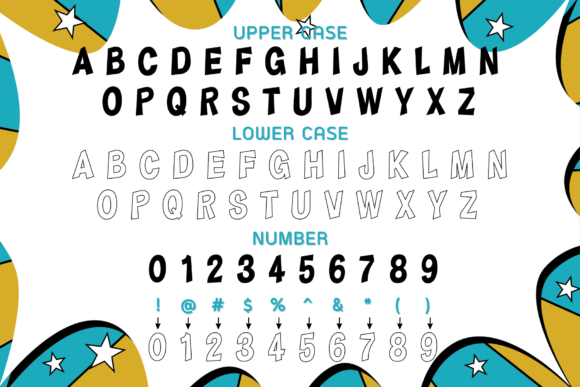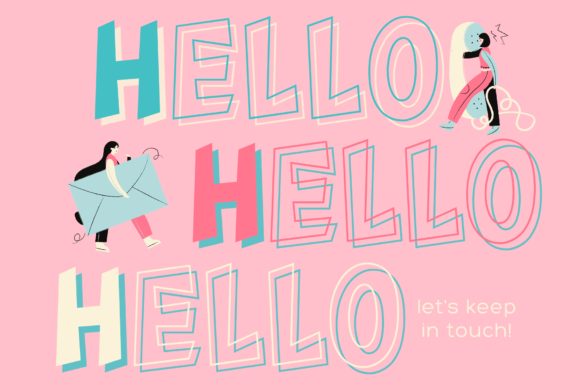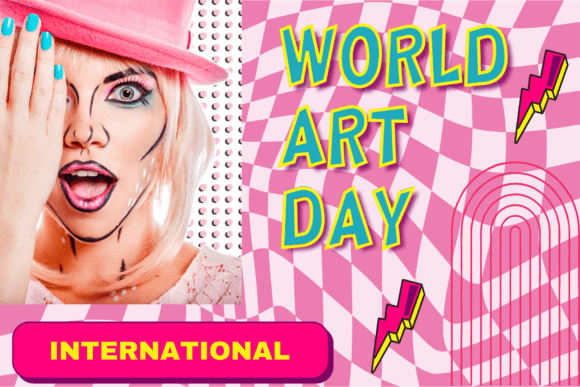
Introduction to Pop Art Font
You’ve got a creative project in mind, and you’re searching for the perfect font to make it pop. As you scroll through design resources, one name keeps popping up: Pop Art Font. This iconic display font is a masterclass in bold, colorful design that’s sure to grab attention and evoke the vibrant spirit of 1960s pop art.
Whether you’re working on a poster, album cover, or digital design, the Pop Art Font is a valuable asset for designers. Its unique, stylized letters are perfect for creating eye-catching titles and headlines that demand attention. Plus, its high-quality design is available for free download, making it a go-to resource for creatives on a budget.
Key Features of Pop Art Font
- Unique, bold design: Pop Art Font features a distinctive, eye-catching style that’s perfect for creative projects.
- Large character set: With a wide range of characters, including uppercase and lowercase letters, numbers, and symbols, you’ll have everything you need for your design.
Honest Review: Pop Art Font
- ✨ Unique and playful design aesthetic that adds a pop of fun to any project
- ✨ High-quality font files that are perfect for print or digital use
- ⚠️ Limited character set, which may not be suitable for longer blocks of text
Overall, I’m impressed with the Pop Art Font‘s unique design and high-quality files. While it may not be suitable for every project, it’s definitely a great addition to any designer’s toolkit. With a little creativity, you can use this font to create stunning visual effects and elevate your designs to the next level.
Pop Art Font is perfect for creative projects, such as posters, flyers, or social media graphics. It’s also great for designing logos, business cards, or even entire branding packages. With its unique style and versatility, Pop Art Font is a valuable design resource that can add a touch of creativity to any project.